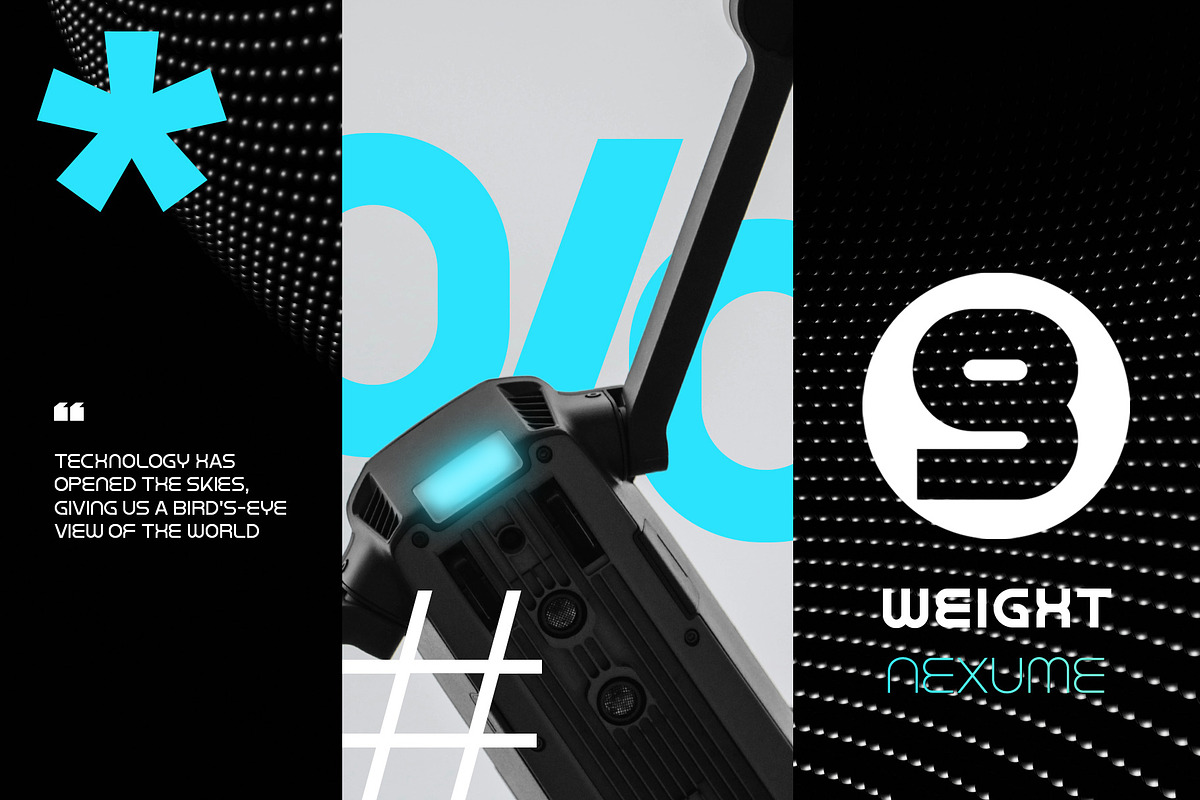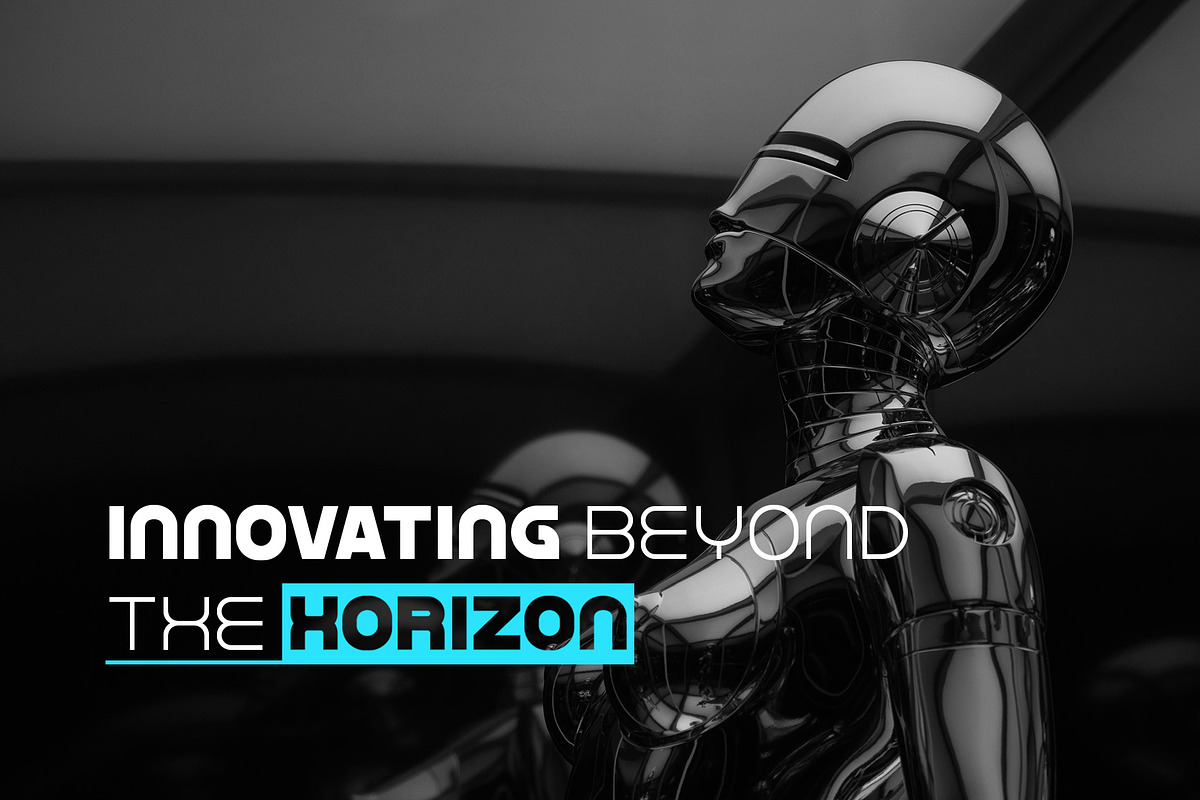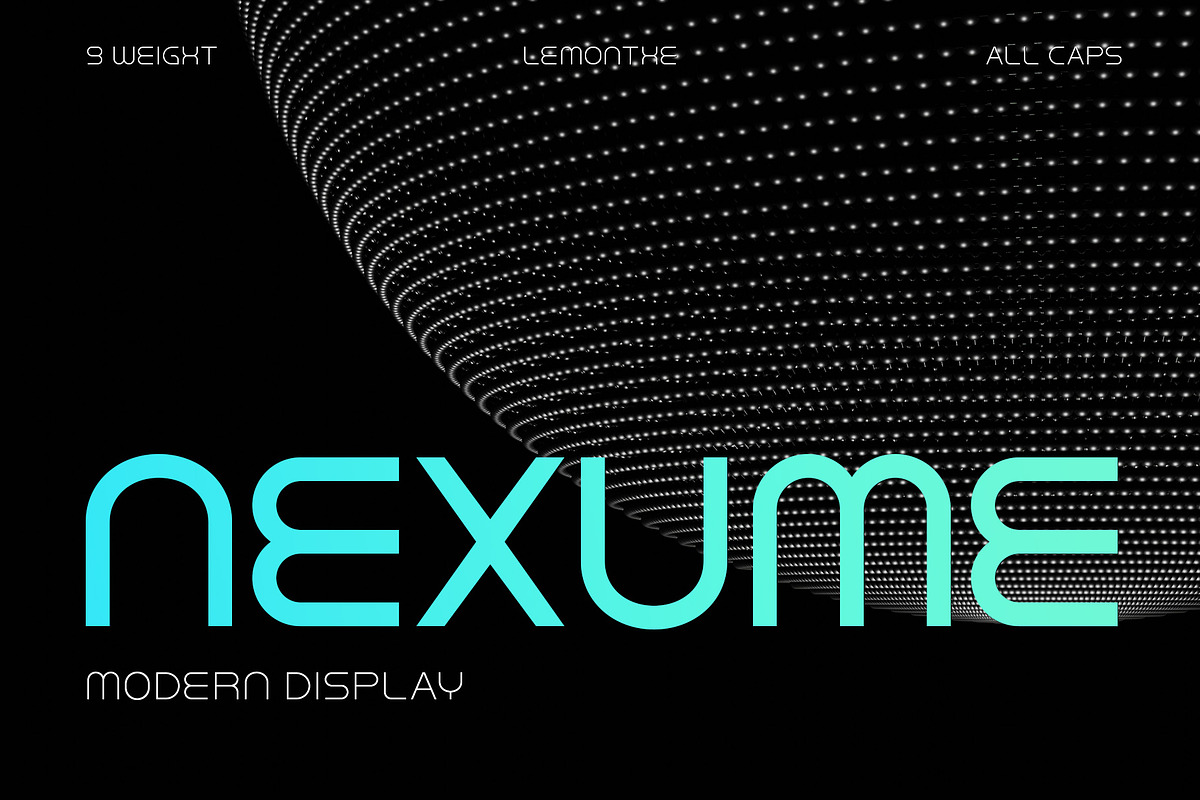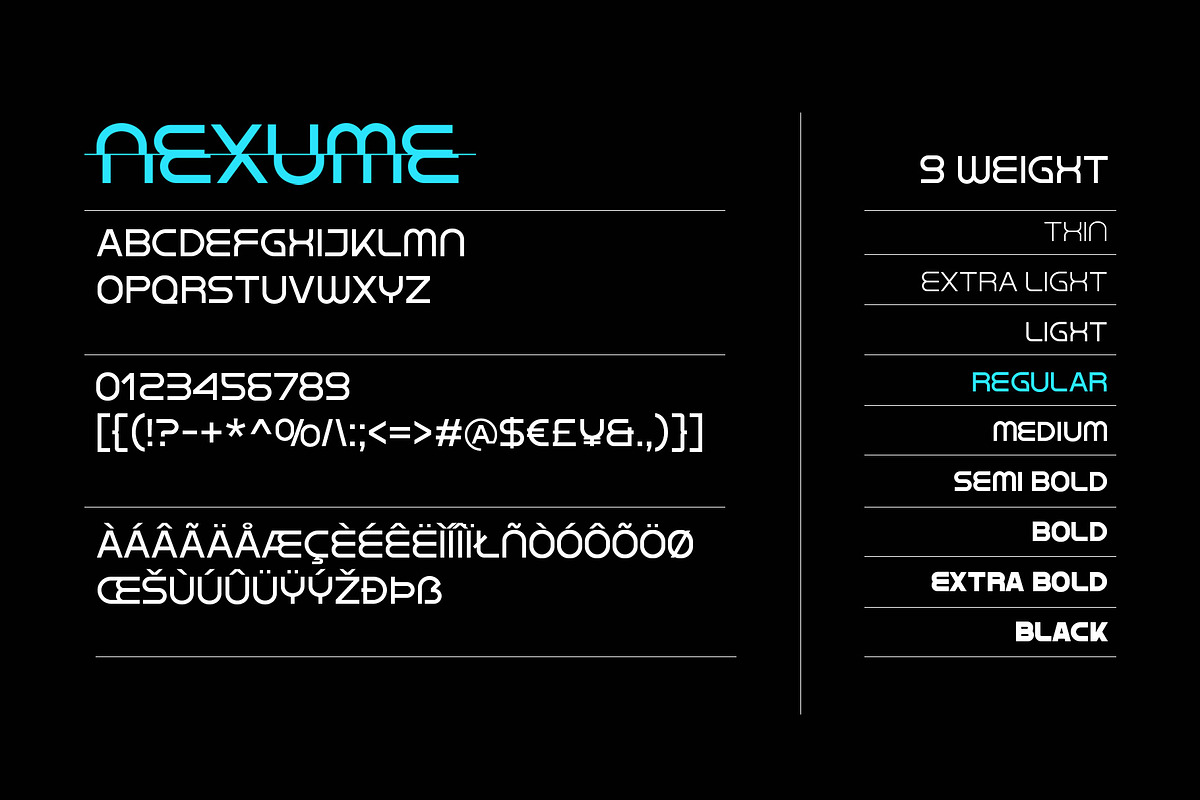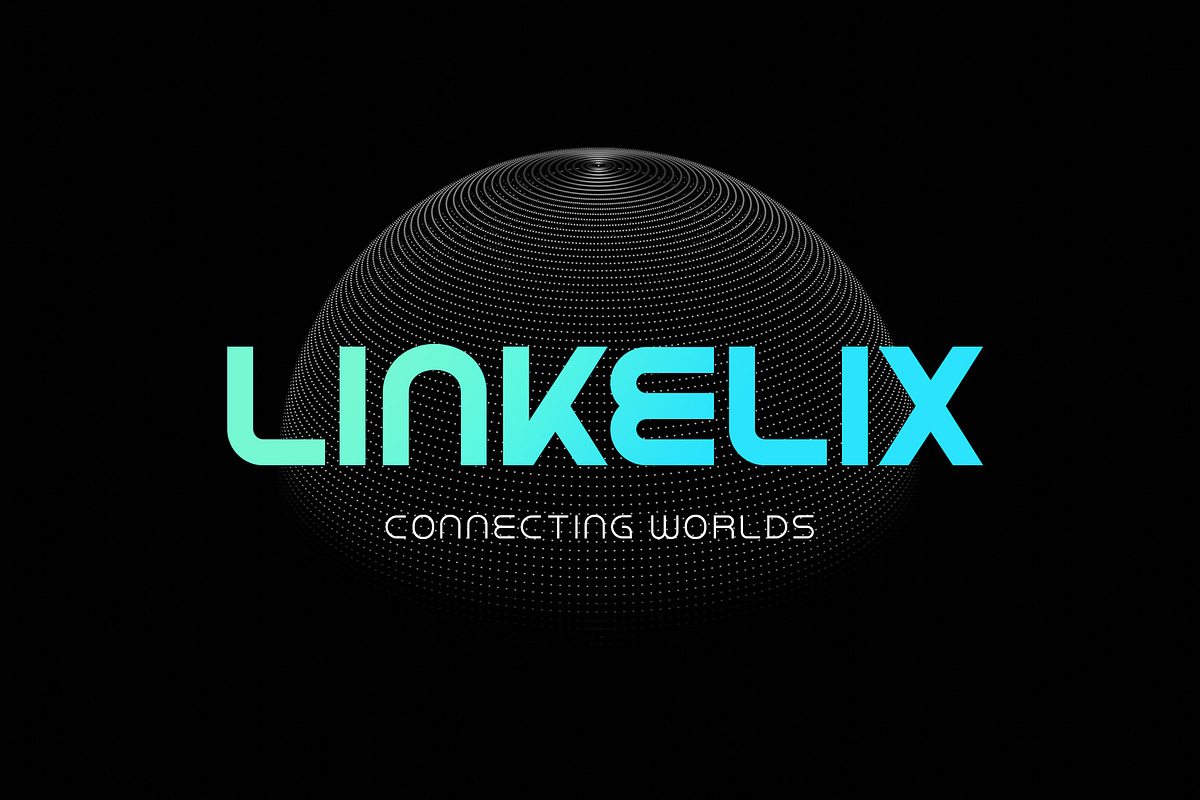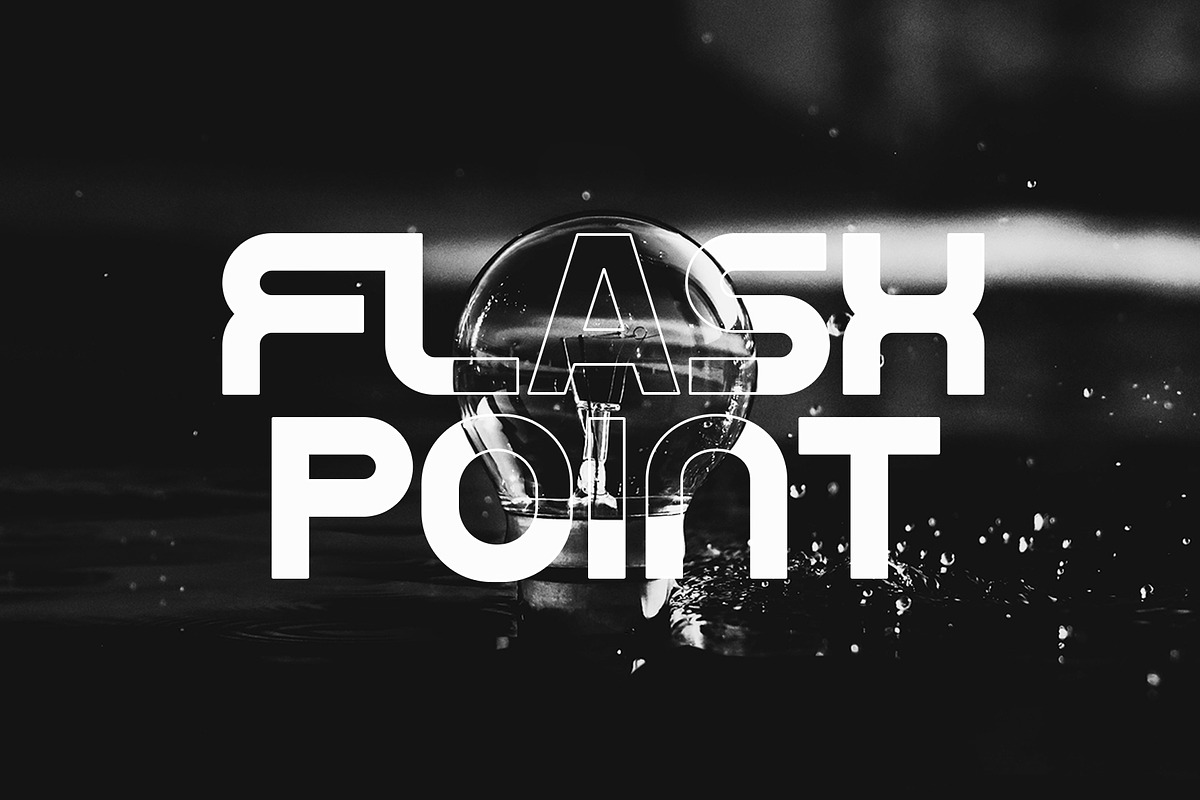
Nexume | Modern Display
Nexume is a modern display font with a futuristic style. It features a clean and minimalist design with smooth curves, making it ideal for projects such as logos, branding, digital media, headlines, posters, and more. Nexume offers 9 varying font weights, ensuring flexibility for a wide range of design needs.
- 9 Weight